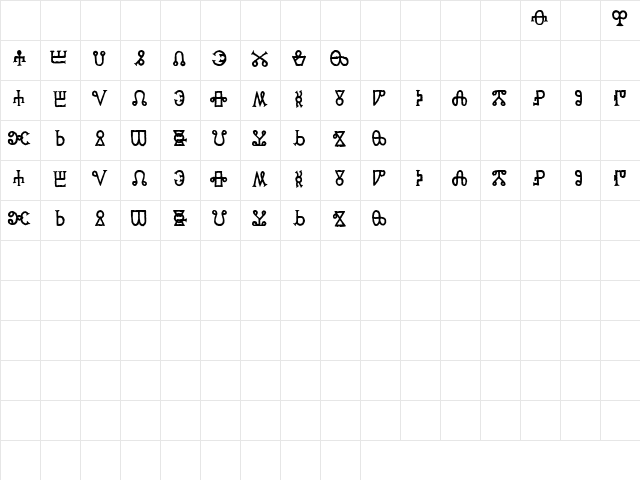
Glagolitic AOE Regular
Design Context for Glagolitic AOE Typeface
Glagolitic AOE takes a measured approach to typography — its balanced proportions and neutral character make it a reliable workhorse for both digital and print work.